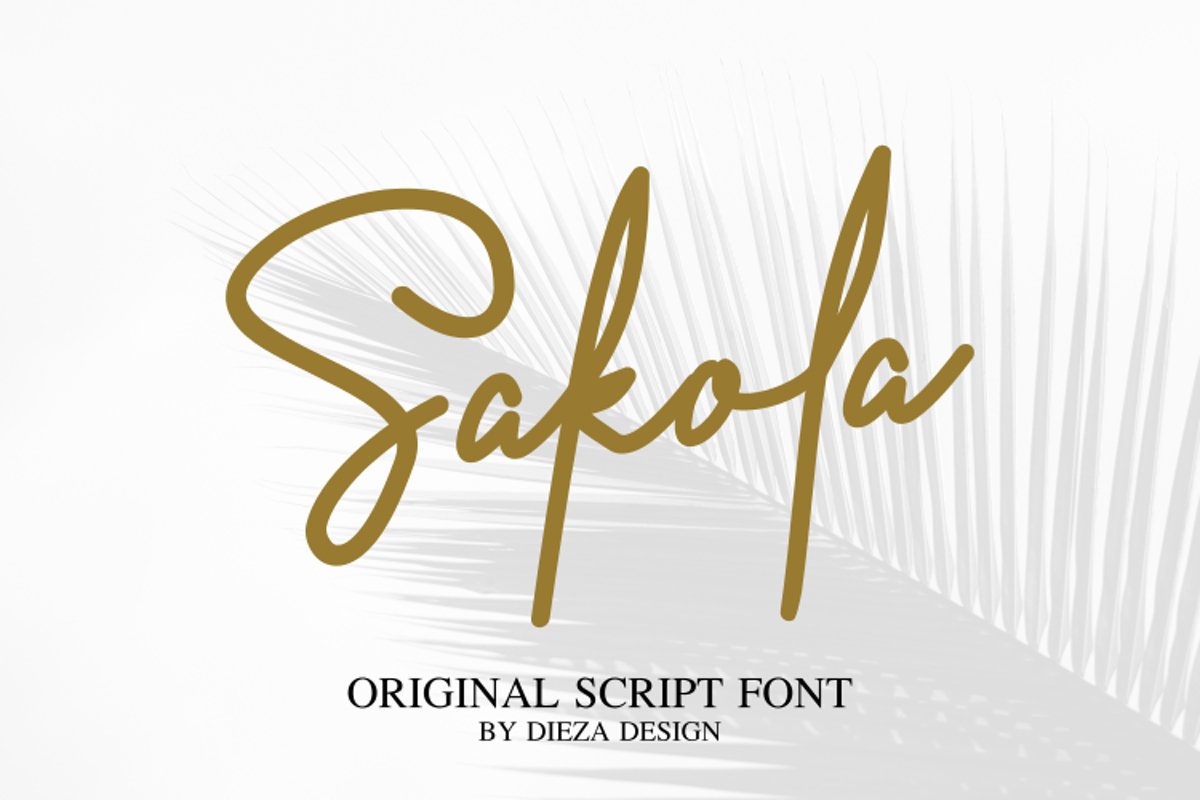
Sakola
This is our newest product, we call it Sakola! Sakola is a hand writing font, with sweet touches and unique personality in each letter.
Sakola is very good to use on:
- Wedding invitations,
- Fashion magazines
- Logos
- Signatures
- Photography watermarks